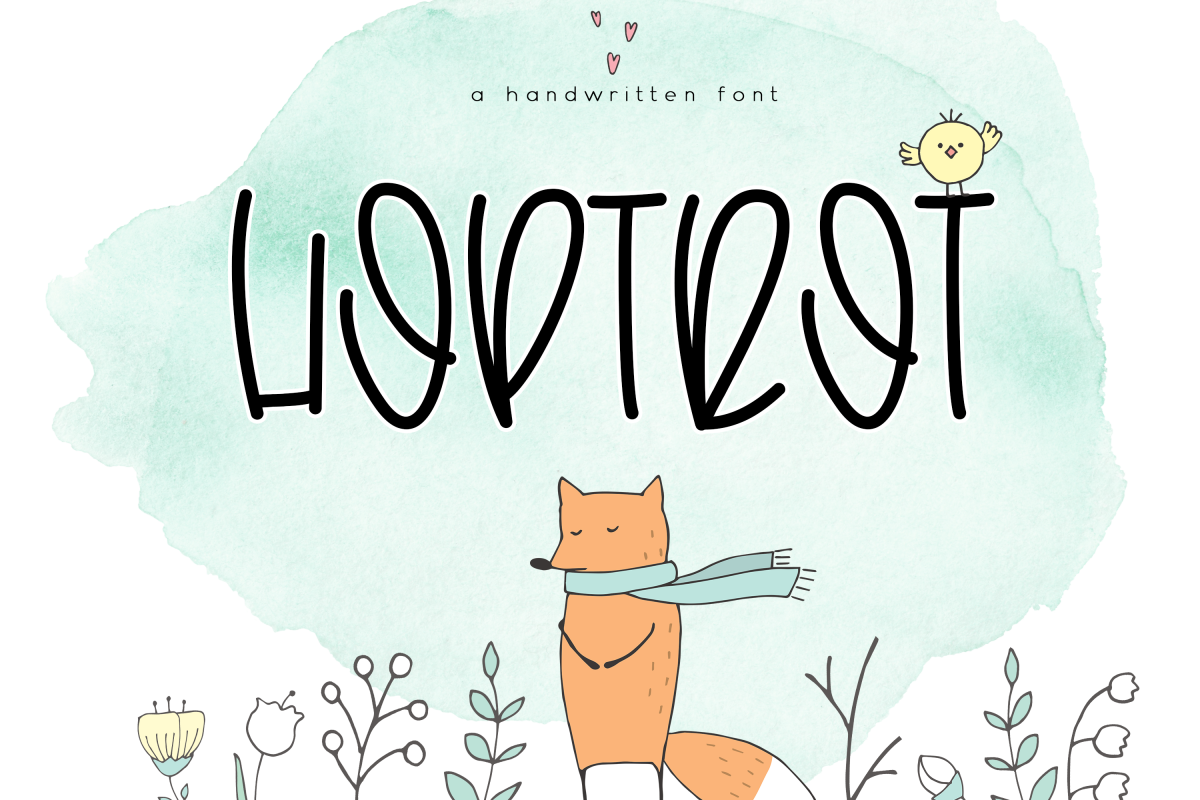
Hoptrot - A Cute Handwritten Font
Hoptrot
Foxtrot is a cute, all caps handwritten font.
The letters are big, bold and unique!
The capital letters and lowercase letters are the *same* in this font.
This font is perfect for quotes, headings, blogs, logos, invitations and more!
This font *does* include accent characters.